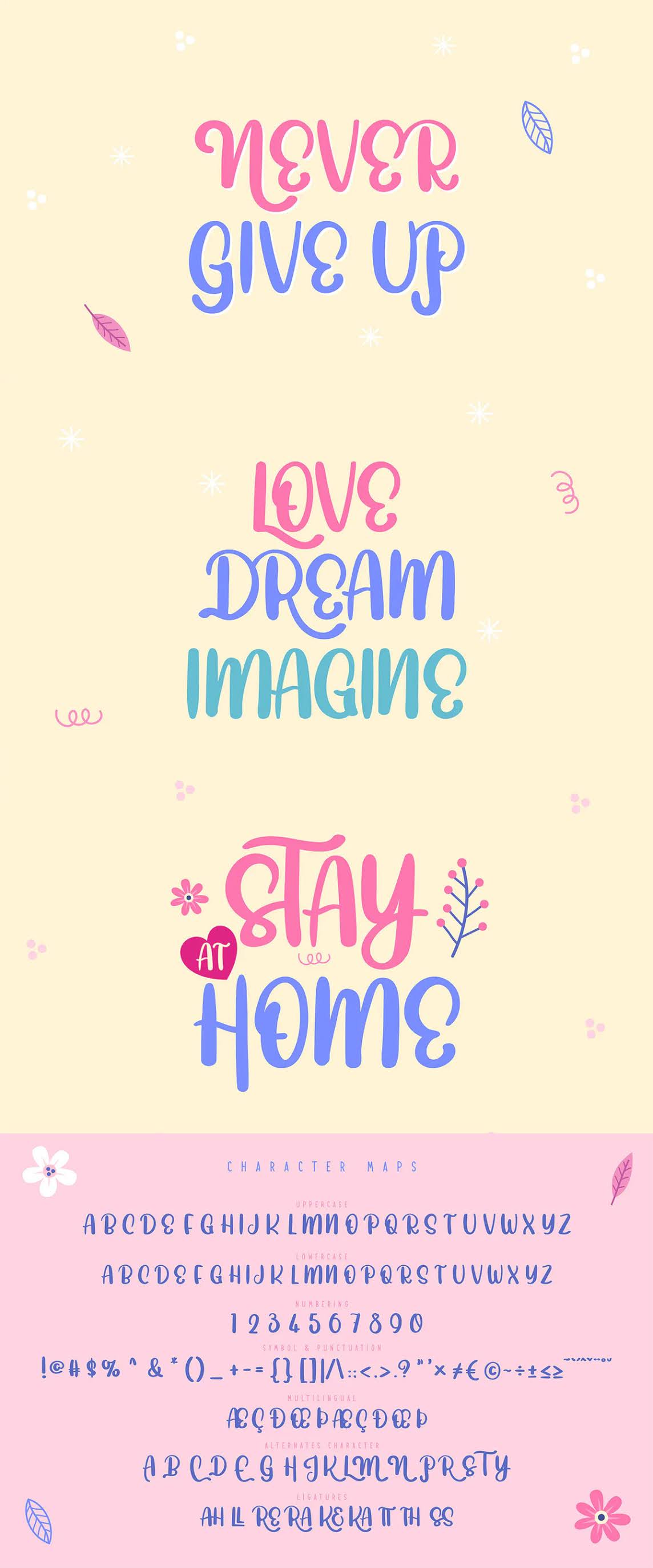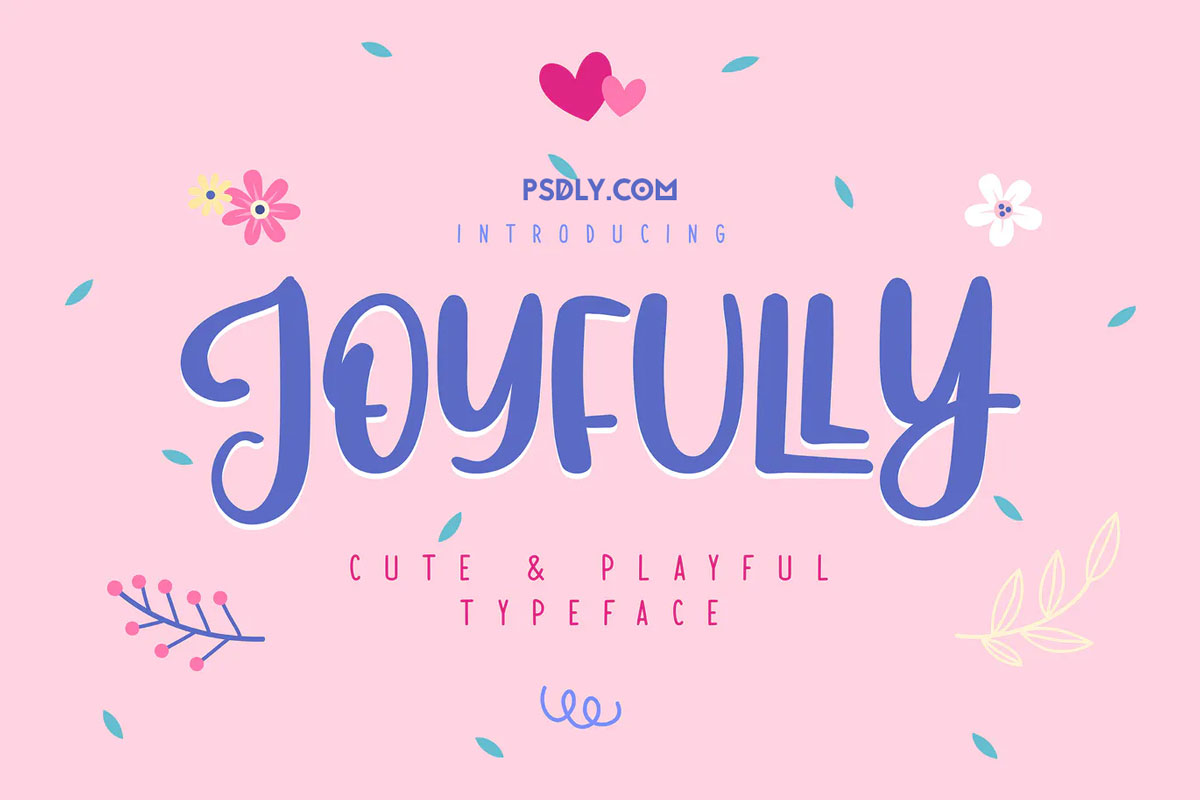
Joyfully | Cute & Playful Typeface
Joyfully | Cute & Playful Typeface Free Download. Joyfully | Cute & Playful Typeface with a calligraphy style, So beautiful on invitation like greeting cards, branding materials, business cards, quotes, posters, and more!
Download Free Joyfully | Cute & Playful Typeface. The alternative characters were divided into several Open Type features such as Stylistic Sets, Stylistic Alternates, Contextual Alternate, SWASH and Ligature. The Open Type features can be accessed by using Open Type savvy programs such as Adobe Illustrator, Adobe InDesign
• Tons of glyphs
• Alternates and Ligatures
• Functional
• Fonts include Multilingual Support